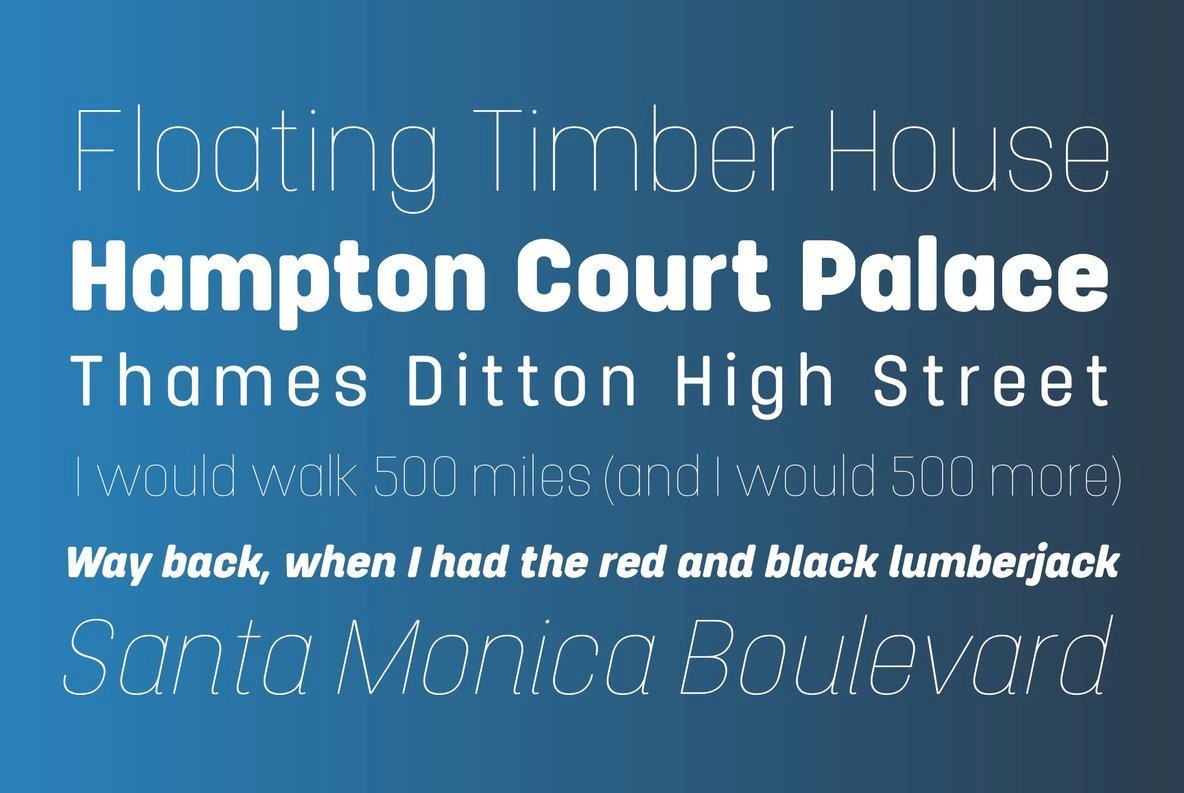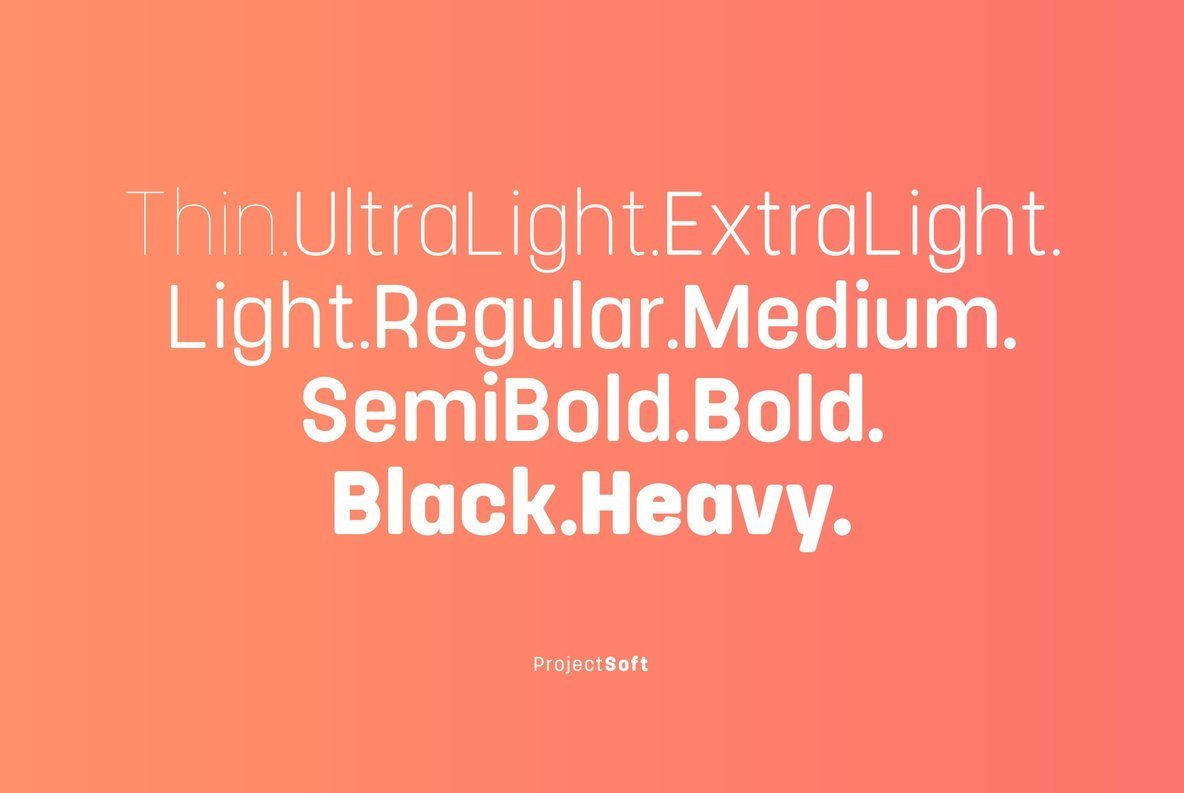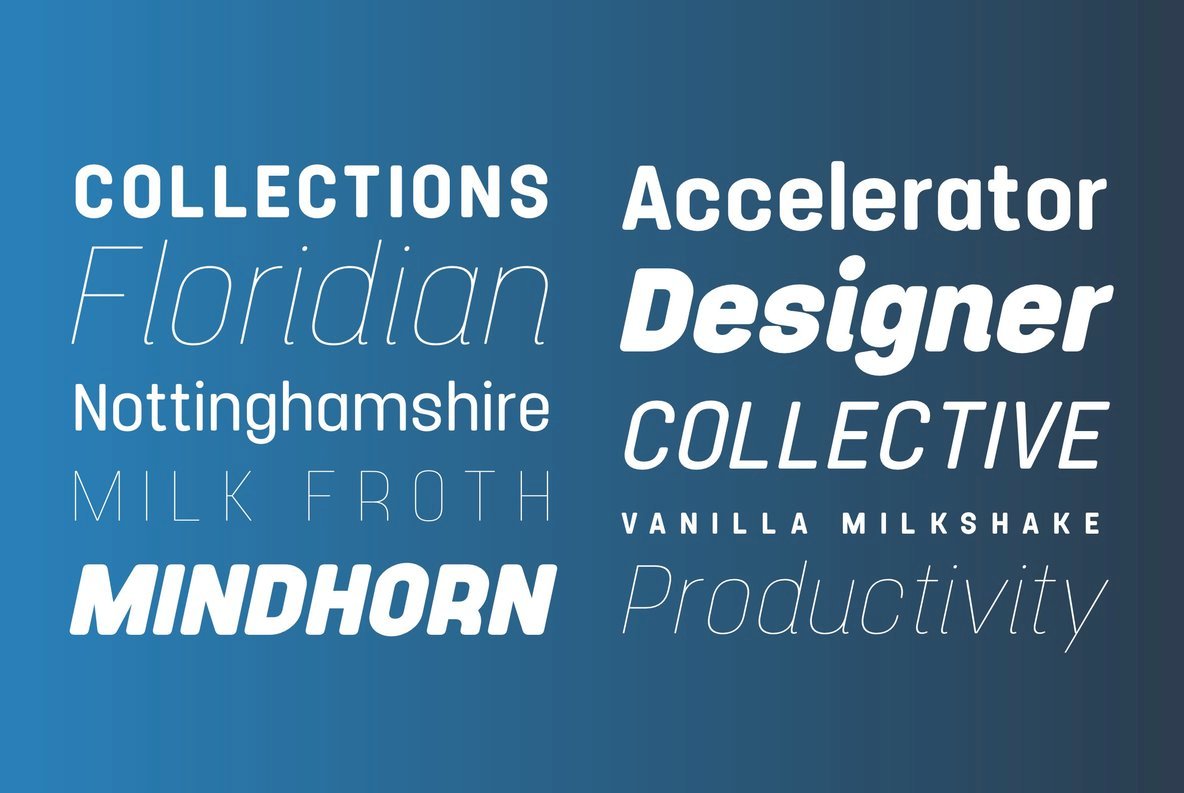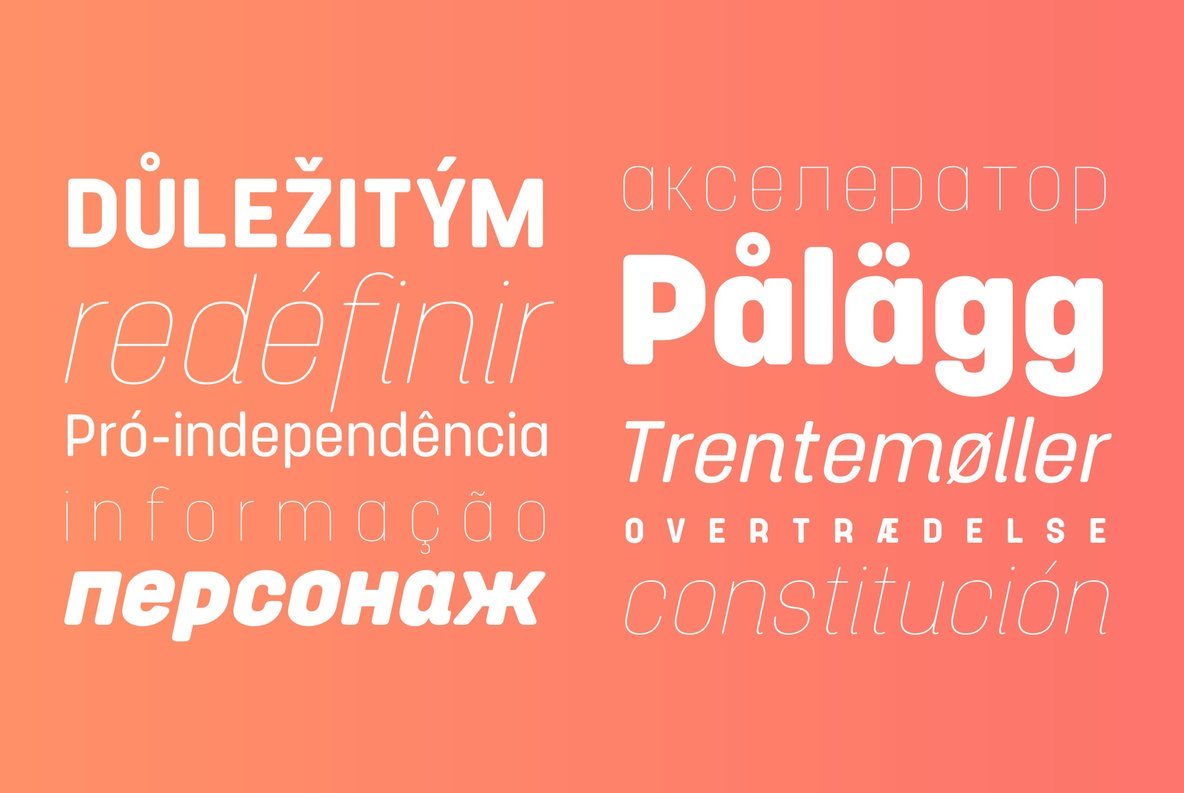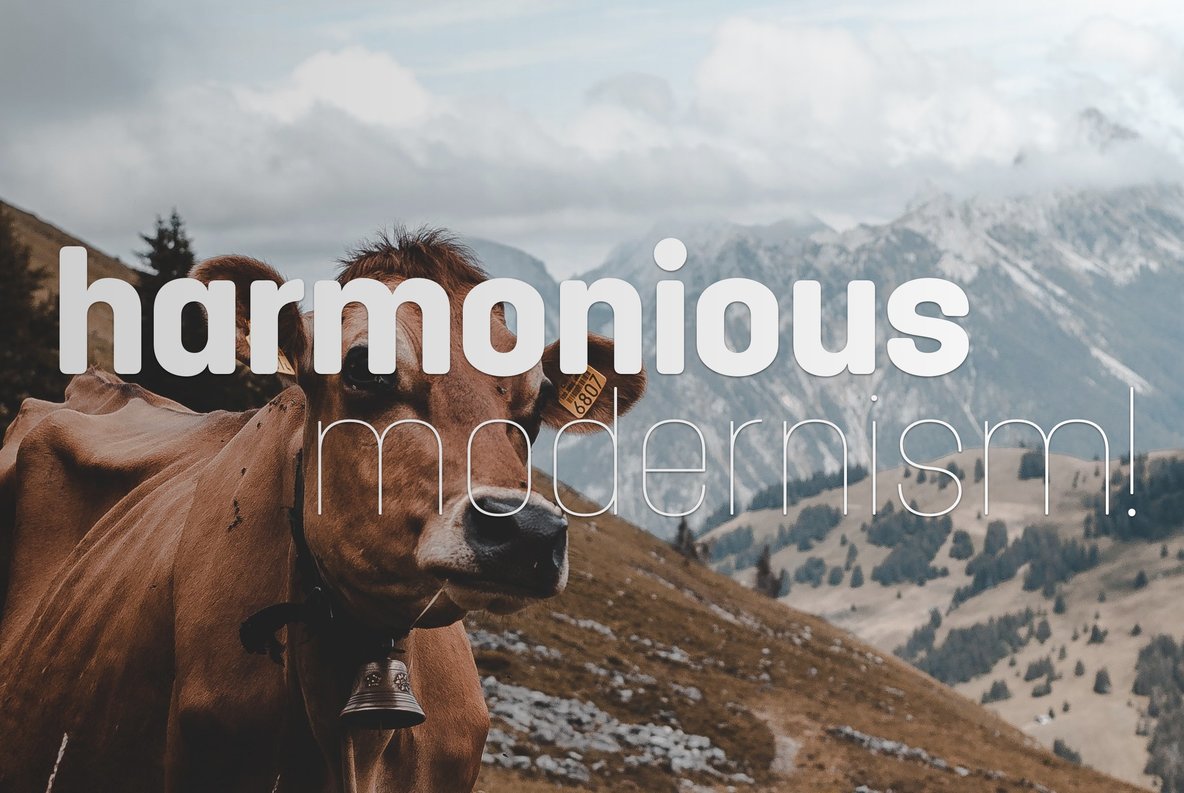
Project Soft Font
Project Soft is the more playful version of our 2017 release, Project Sans.
The font features the same 10 weights and matching italics but while the Sans version was more structured, the Soft version shows a cheeky side that creates a vast array of potential. The font still features substantial language support as well as specifically designed italics that feature a unique look for certain characters.